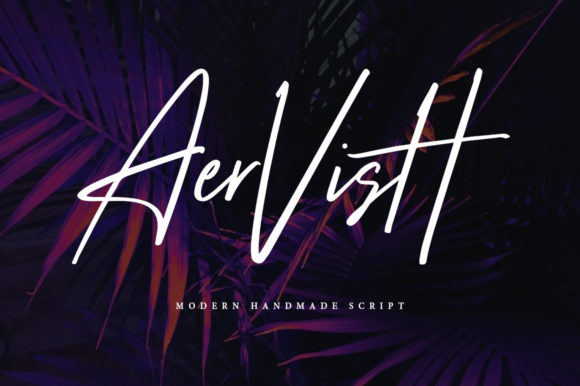
About Aervish Font
Aervish is a casual handwritten font, created by using a brush pen. Clean and a little bit quirky, this font is the perfect fit for all of your logos, branding, social media, and crafty DIY projects.